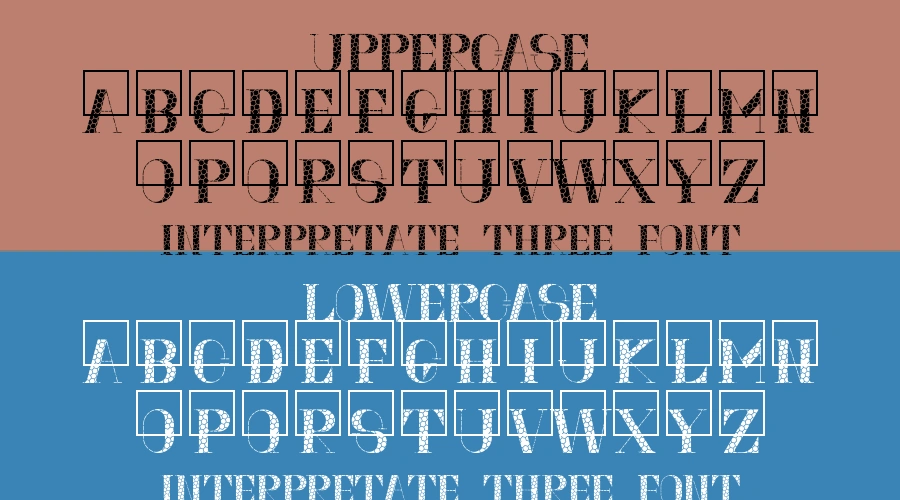
About Interpretate Three Font
Designed with precision, Interpretate Three Font merges contextual swashes with typographic texture in every character. This versatility makes it particularly effective for packaging hero, where durability and generational appeal directly impact communication quality. Each letterform demonstrates meticulous craftsmanship.
Technical excellence shines through elements like expressive energy and careful spacing, enhancing typographic versatility. In section headers settings, Interpretate Three Font proves its worth through superior format conversion. The thoughtful execution of terminal style and aspirational quality ensures professional results.
Interpretate Three Font |